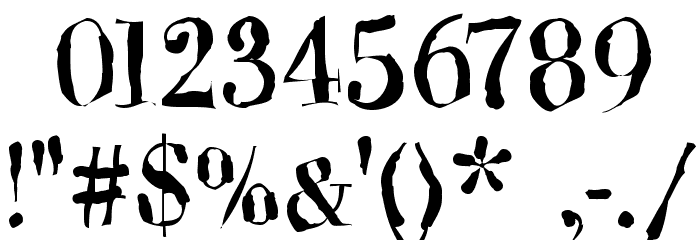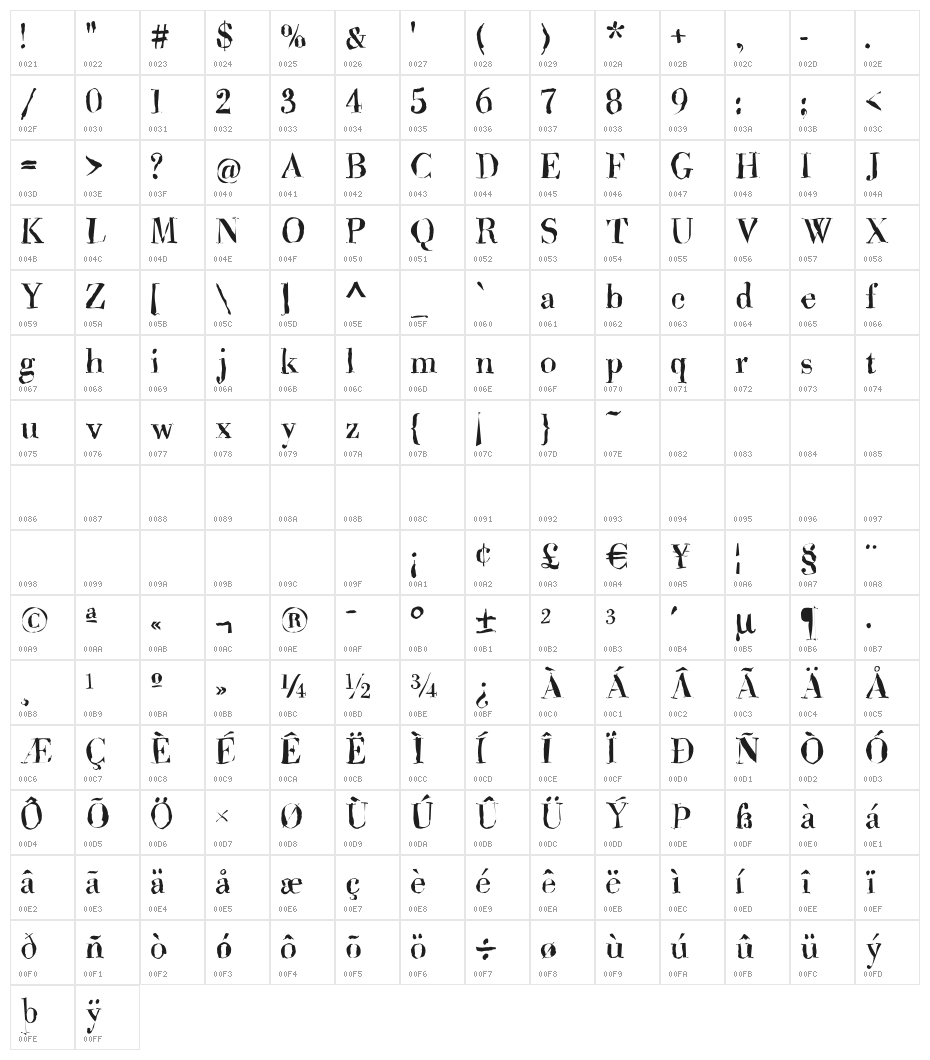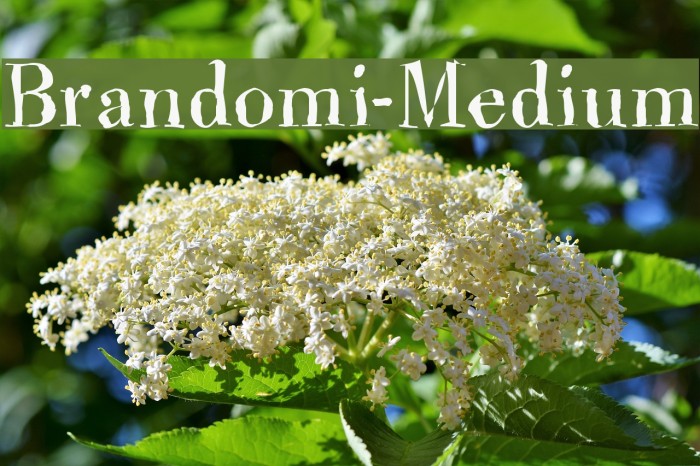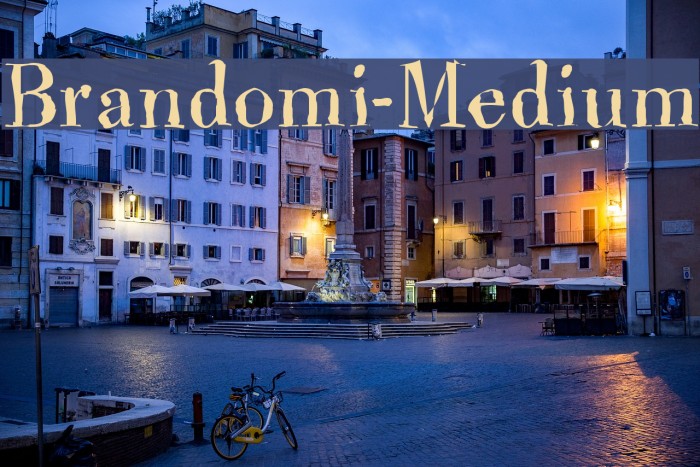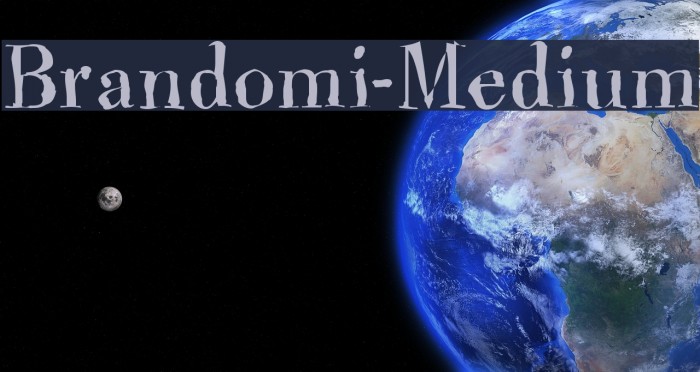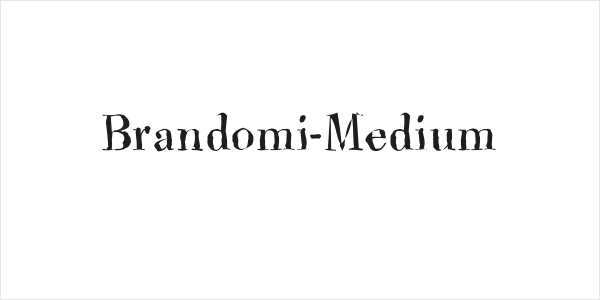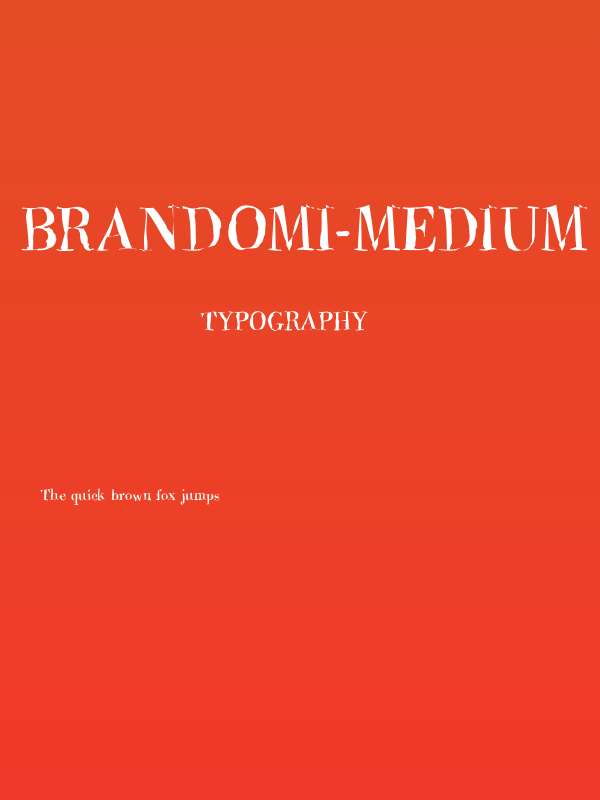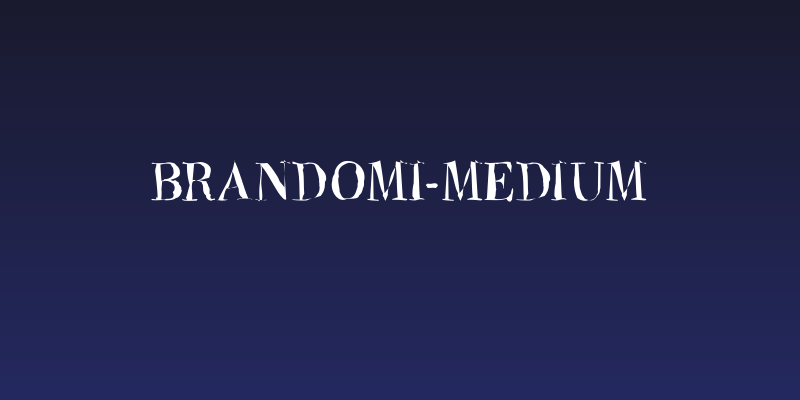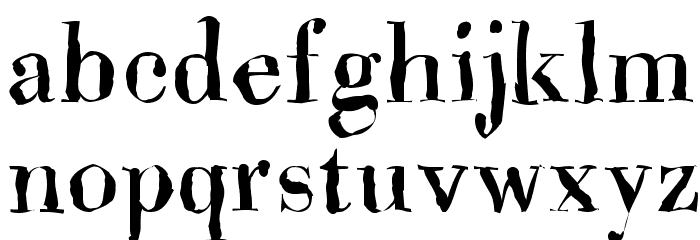
Brandomi-Medium Font
Brandomi-Medium Description
This font features a distinctive, artistic style with uneven, hand-drawn strokes that give it a rustic and organic feel. The uppercase and lowercase letters exhibit a playful yet sophisticated character, with varying stroke widths that create a dynamic visual rhythm. The numerals and special characters maintain this unique aesthetic, making them stand out with their bold, expressive forms. The overall design is reminiscent of vintage calligraphy, yet it retains a modern edge that makes it versatile for various creative applications.